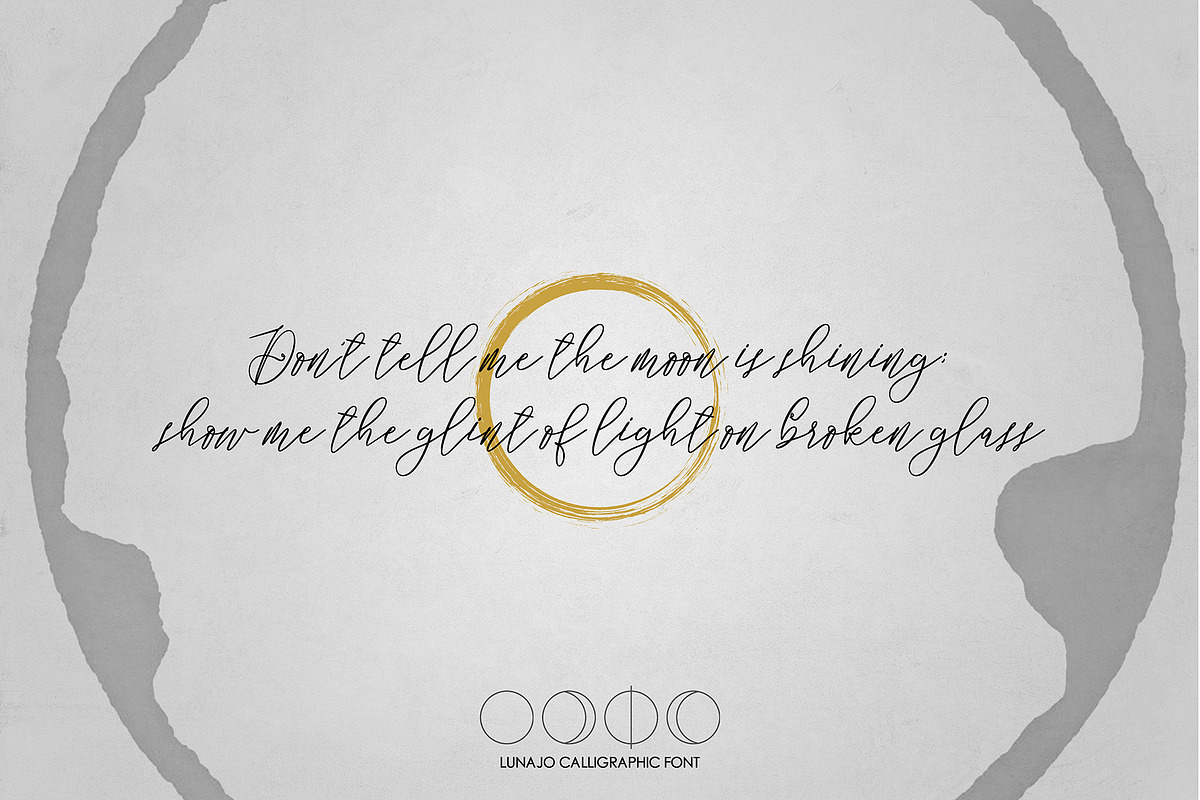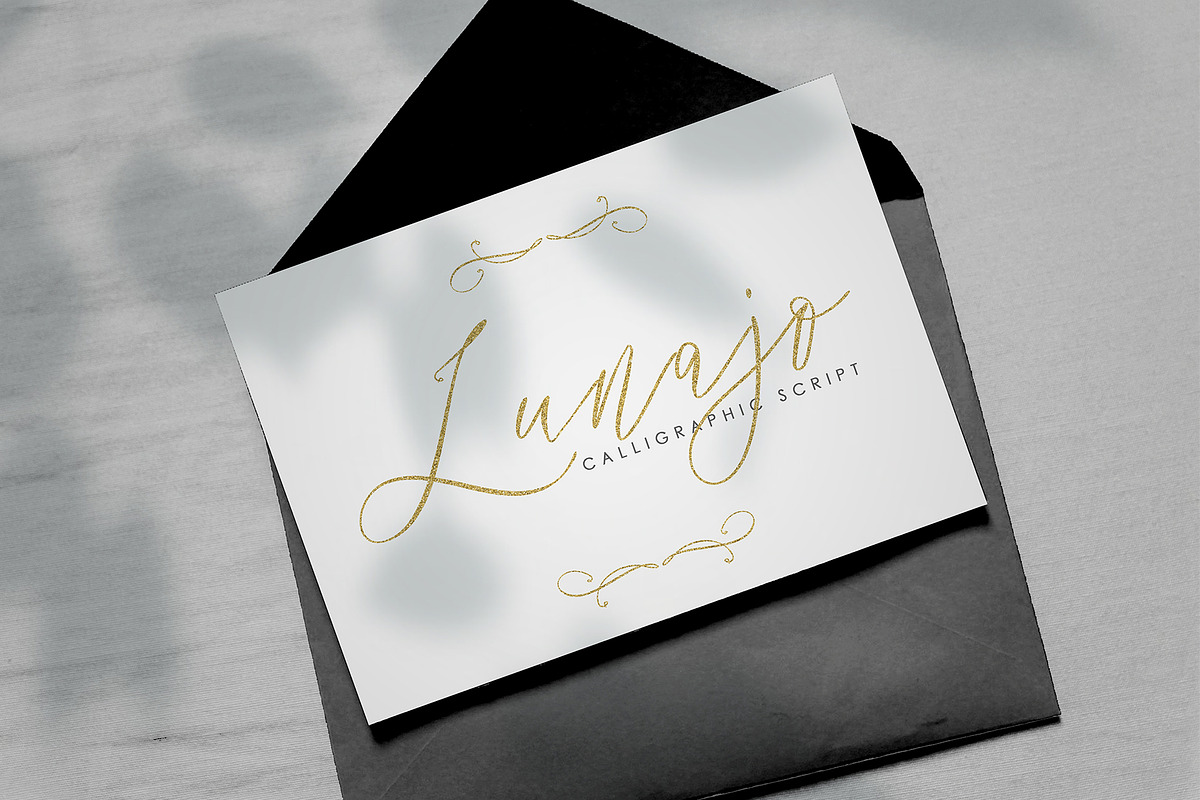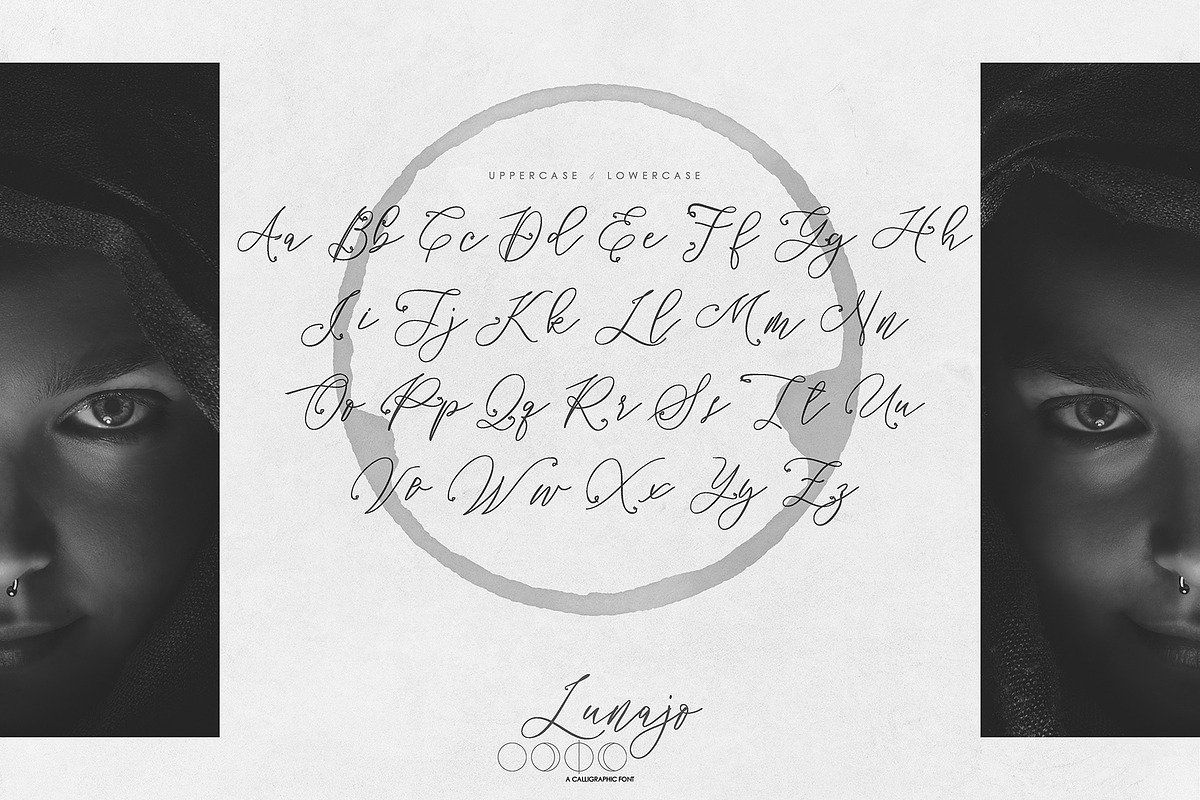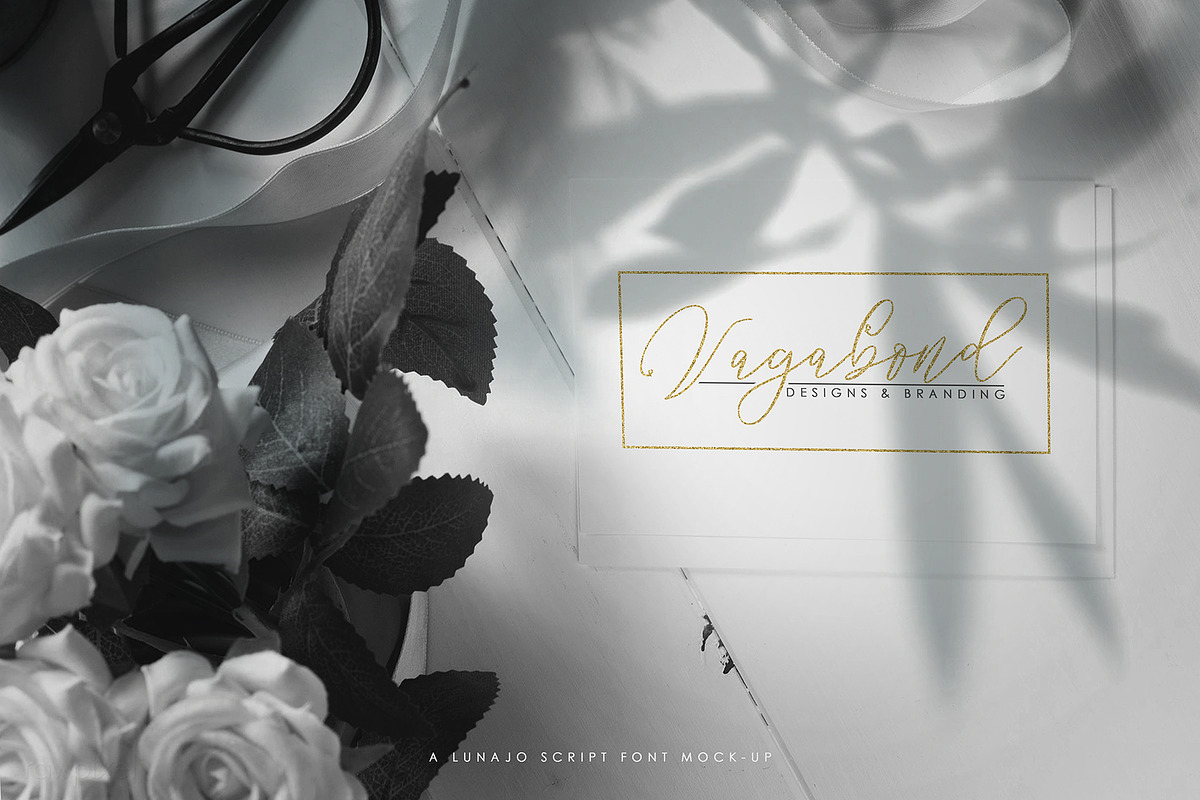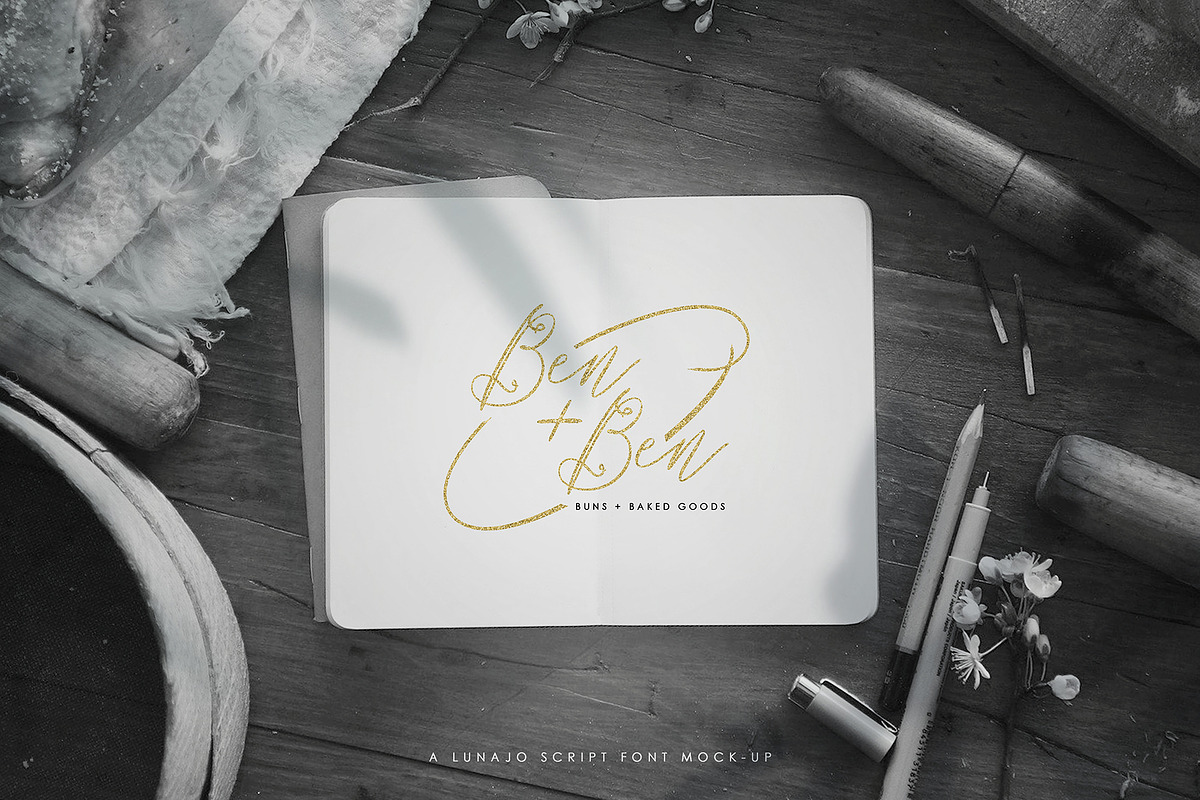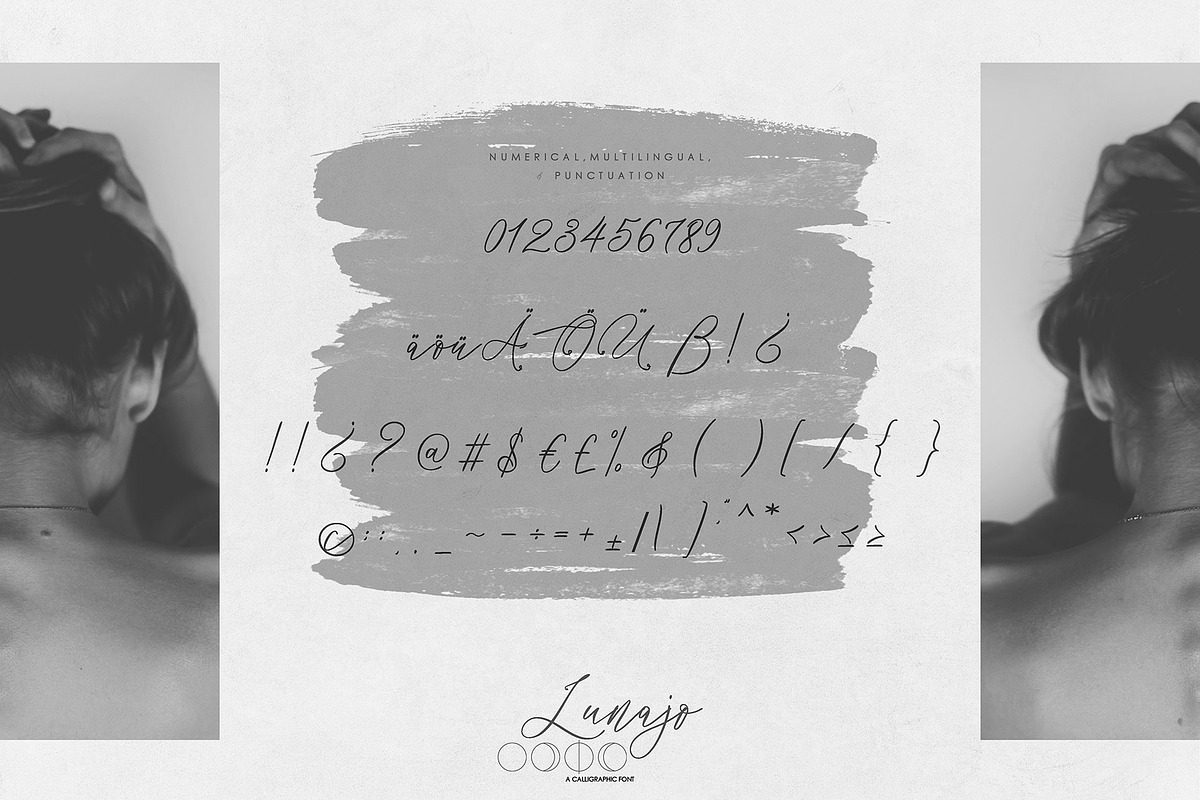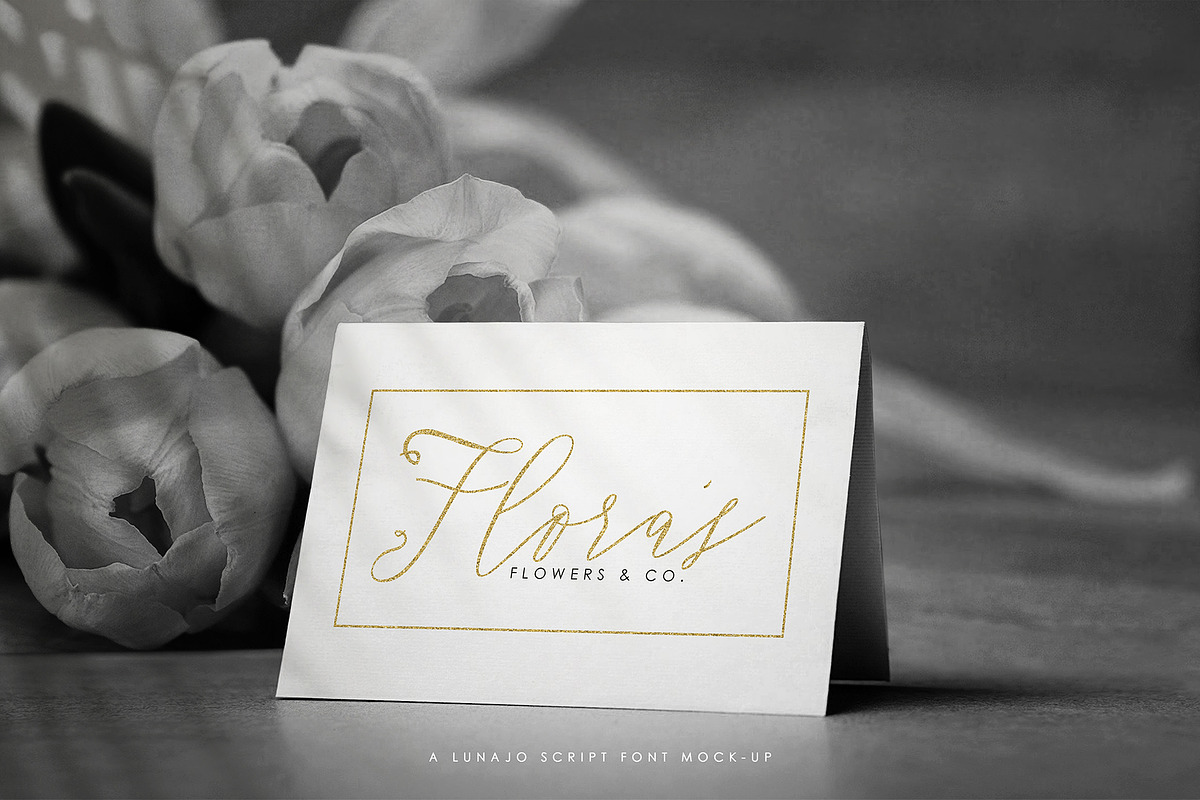
Lunajo - Luxury Signature Font
Lunajo - Luxury Signature Typography
Lunajo is a stylish modern calligraphy font with casual chic flair. It is perfect for branding, holiday cards, wedding invitations, quotes, advertisements, and more. A versatile typeface that's full of character and one you'll come back to time and again. Create something beautiful today with Lunajo.
Lunajo also includes full set of uppercase and lowercase letters, multilingual symbols, numerals, punctuation. The font has smooth wet ink texture, so would be perfect for all types of printing techniques + you can do embroidery, laser cut, gold foil etc.